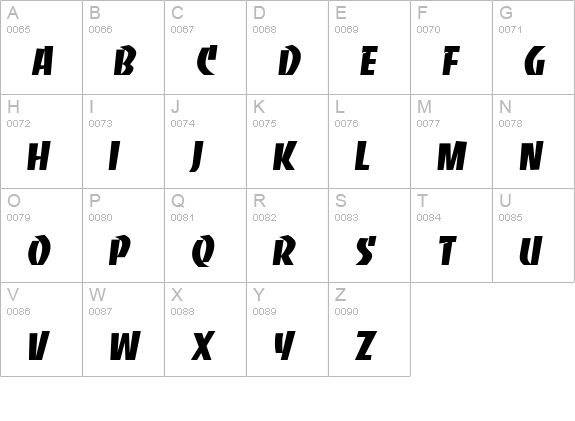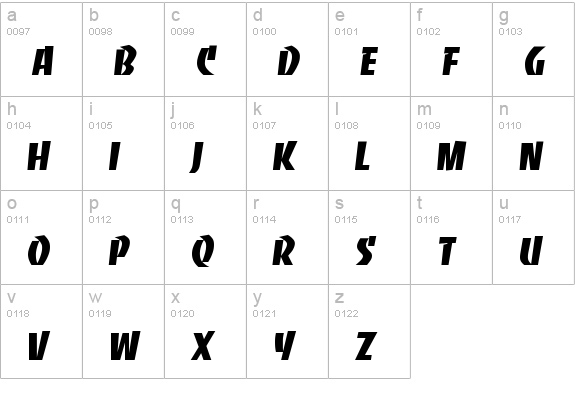
Banco Regular Font Details
Banco Regular is the standard, neutral variant in the Banco typeface family \xE2\x80\x94 well suited to general body text, paragraphs, and standard typographic work.
Banco Regular font is a versatile and modern typeface that exudes elegance and sophistication. With its clean lines and sharp edges, this font is perfect for a wide range of design projects, from logos to headlines to branding materials. The sleek and stylish appearance of Banco Regular font makes it a popular choice among designers looking to make a bold statement. The best part? Banco Regular font is available for free download at FontsMarket.com. So whether you're working on a personal project or a client's design, you can easily access this high-quality font without breaking the bank. Don't miss out on the opportunity to enhance your designs with Banco Regular font's timeless appeal and contemporary flair. Download it today and elevate your typographic game!